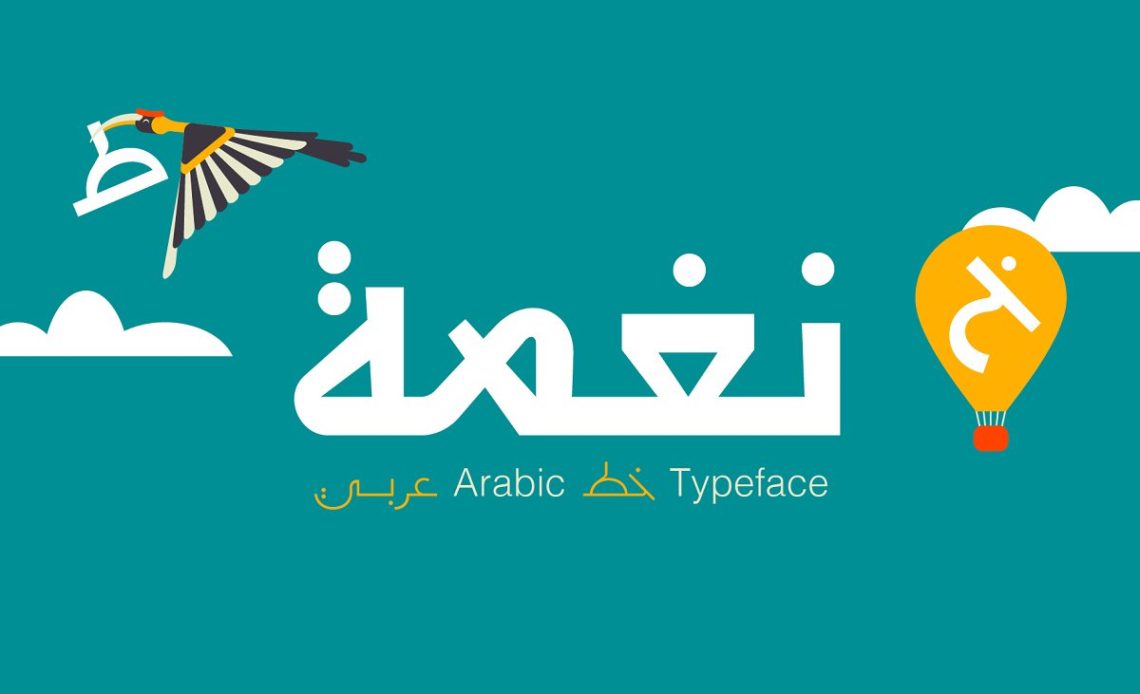
Introducing Naghamah, the vibrant and dynamic Arabic display font that will bring your creative projects to life. Created by the talented designer Mostafa Abasiry, Naghamah is the perfect choice for those looking to add a touch of joy and energy to their designs.
The font family, which features both regular and bold weights, comes with a stylistic set that allows you to customize your typography to suit your needs. Naghamah's sans serif design is not only visually appealing, but it also works seamlessly across a wide range of platforms, including web, print, and mobile applications.
Naghamah is more than just a font; it's a work of art that reflects the beauty and complexity of the Arabic language. Each letterform has been carefully crafted to evoke a sense of motion and liveliness, making it ideal for projects that require a playful and dynamic touch.
Whether you're creating branding materials, infographics, or publication designs, Naghamah is the perfect choice for bringing your vision to life. So why settle for a boring font when you can add a touch of excitement and personality to your designs with Naghamah? Download it today and experience the magic for yourself!